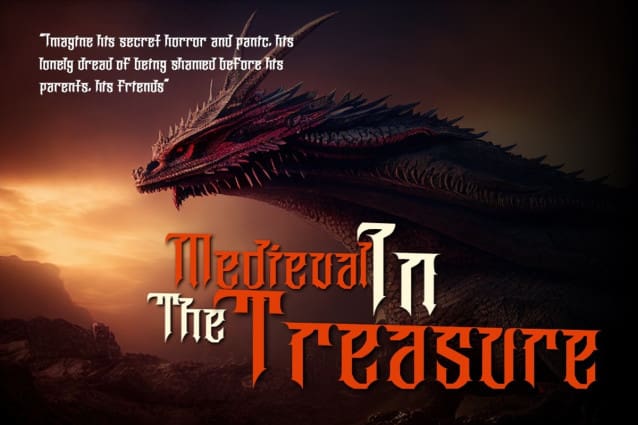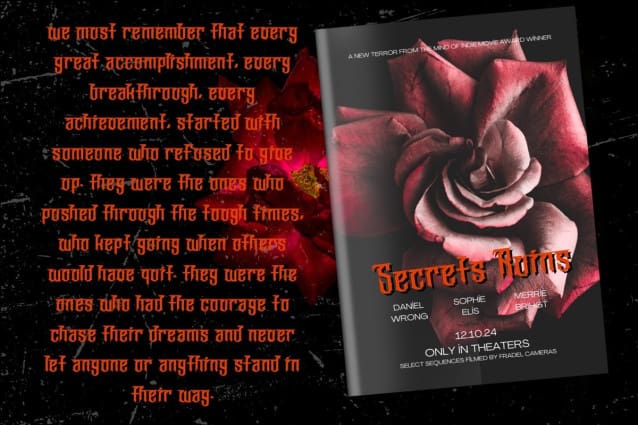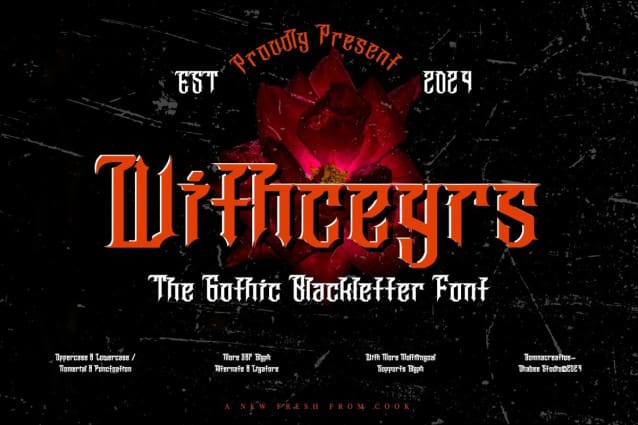
Withceyrs Blackletter Font
Withceyrs Blackletter Font is a classic and distinct blackletter font. It’s great for crafters and designers. This font is suitable for letter texts, documentation, business reports, business correspondence, magazines, newspapers, posters, advertisements, multimedia, and corporate design.